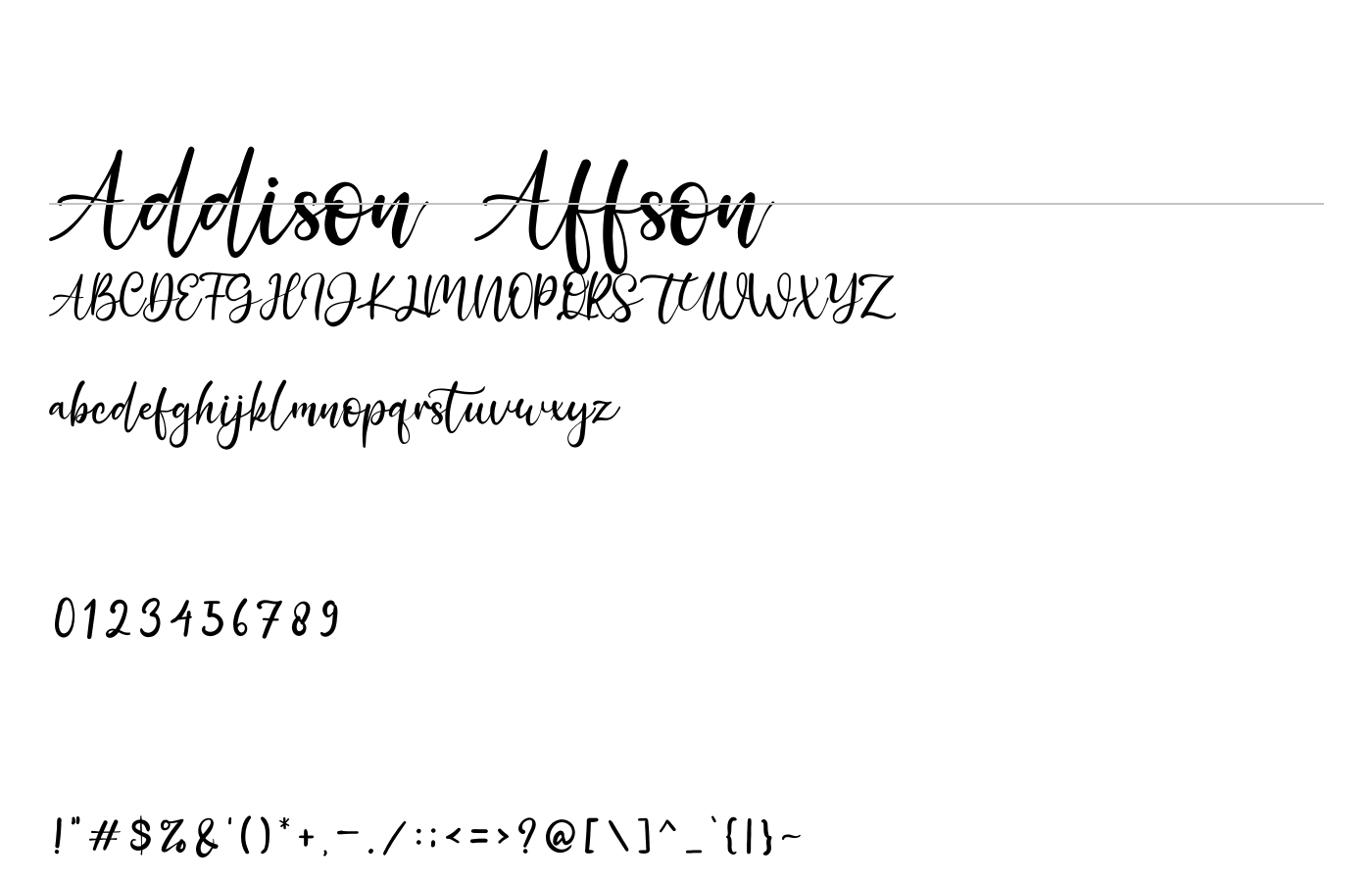
Addison Affson is a graceful script font that features elegant, flowing letterforms with a smooth, connected style. Its delicate strokes and moderate contrast create a stylish, handwritten feel that works beautifully for invitations, personal branding, and sophisticated design projects where a touch of charm and femininity is desired. This font shines in contexts that call for a warm, approachable yet refined look.
Addison Affson Font
About Addison Affson Font